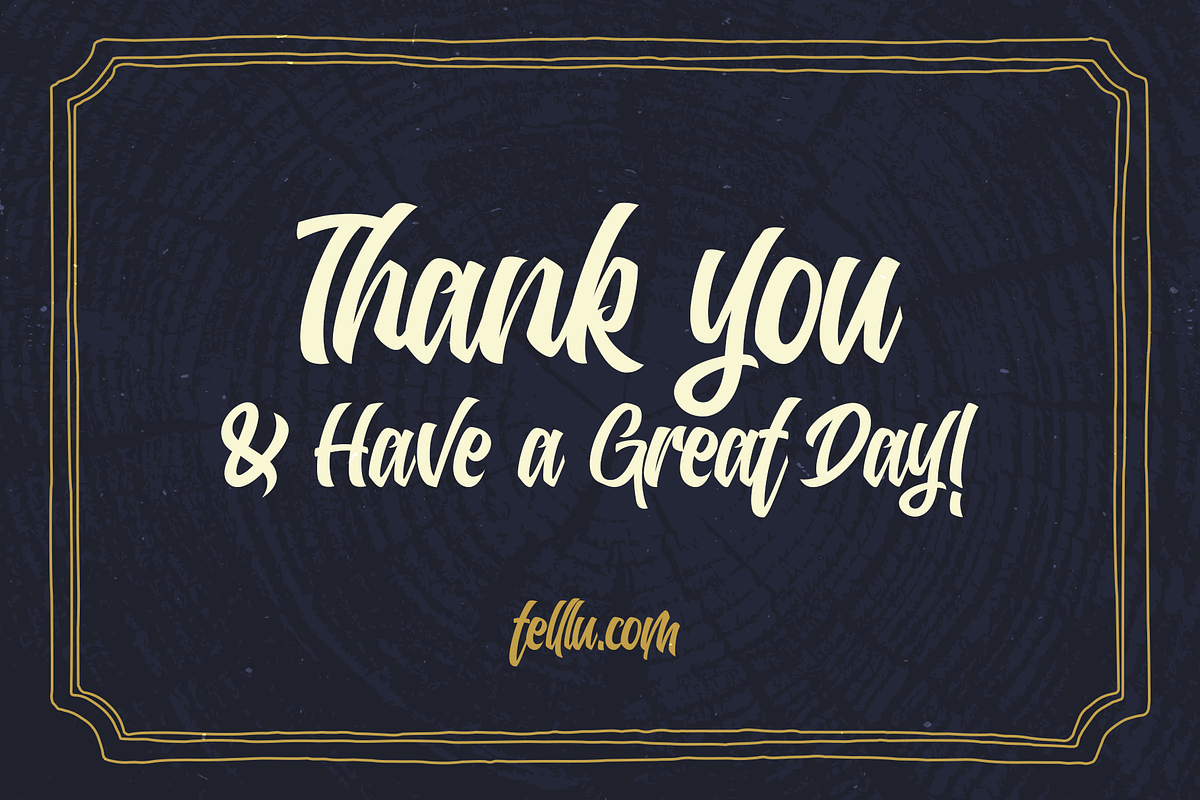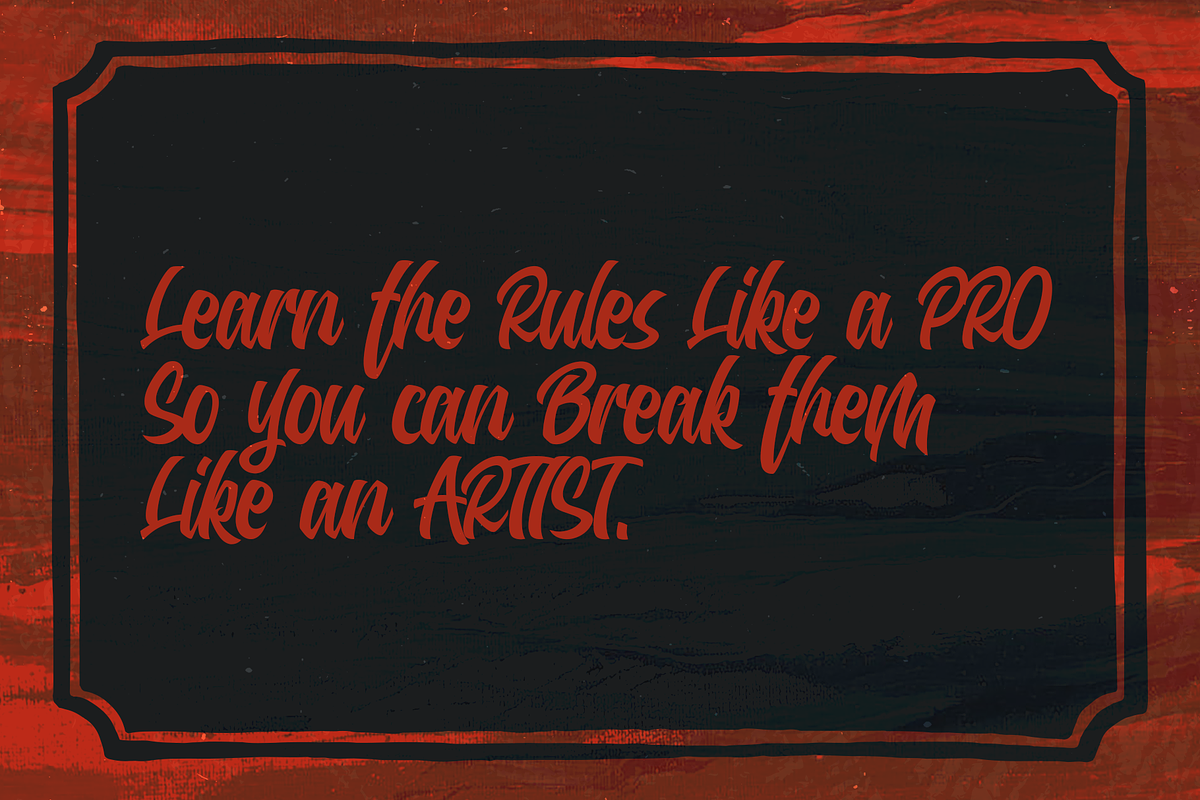
WanderType
WanderType is a handcrafted calligraphy typeface, our second collaboration with Dimas @dirty.type Aditya. A tallented lettering artist from Malang, the second largest city in East Java, Indonesia. Originally made by hand, with strong brush strokes delivered a really solid impressions of typeface. But yet combined with gently movement, WanderType is not only solid, but also brings dinamic personality to your writings. Very suitable to use on any printing projects such as poster, flyer, magazine, apparel, social media, also advertorial purposes. WanderType also good to use as logotype, branding, advertising, and any promotional media.
This original version comes with our standard features such as pppercase and lowercase characters, numeral, currency symbols, punctuations, many ligatures and some alternates characters. It also supported multilingual characters for the following languages; English, French, Italian, Spanish, Portuguese, German, Swedish, Norweigen, Danish, Dutch, Hungarian, Finnish, Polish, Indonesian, Filipino, Malay.